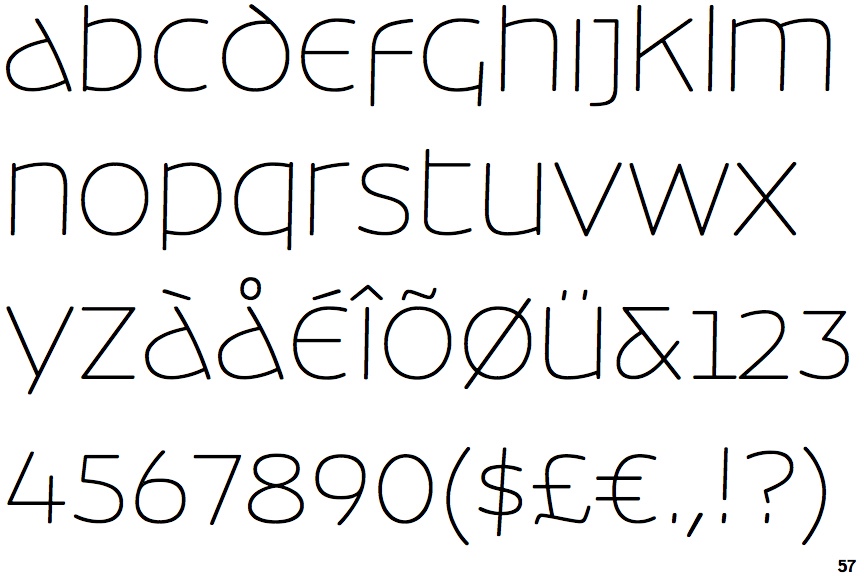
Gasket Uncial Font
Gasket Uncial Font finds perfect application in medieval-themed projects, fantasy book covers, historical documentaries, gothic wedding invitations, vintage logos, manuscript reproductions, calligraphy artwork, traditional certificates, ecclesiastical designs, and renaissance-style branding materials.
What makes Gasket Uncial Font exciting is its authentic medieval character that transports viewers back to ancient monasteries and illuminated manuscripts. This remarkable typeface captures the essence of traditional uncial lettering while maintaining excellent readability in modern applications. The font's distinctive letterforms feature the classic rounded shapes and flowing strokes that defined medieval scribal traditions, making it an invaluable resource for designers seeking historical authenticity.
Gasket Uncial Font belongs to the uncial font family, specifically designed to emulate the ancient writing style used in early Christian manuscripts between the 4th and 8th centuries. This font family typically includes regular, bold, italic, and decorative variants that provide designers with comprehensive typographic options for various creative projects.
Perfect for graphic designers, publishers, historians, and creative professionals, this typeface excels in headers, titles, and decorative text elements. The font's versatility extends to digital media, print publications, web design, and artistic installations where historical accuracy matters.
The carefully crafted letterforms maintain optimal spacing and kerning, ensuring professional results across different sizes and applications. From small decorative elements to large display headlines, Gasket Uncial Font performs consistently while preserving its distinctive medieval character.
Modern designers appreciate how this font bridges the gap between historical authenticity and contemporary usability. Its compatibility with major design software makes integration seamless, while the font's unique personality adds instant sophistication to any project requiring medieval or fantasy aesthetics.